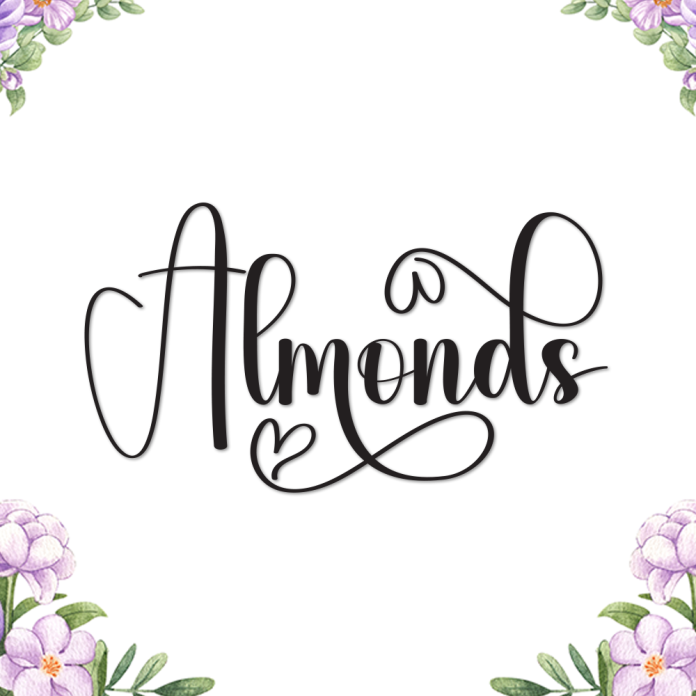
Almonds is a smooth and graceful handwritten font that captures the natural flow of real handwriting. Its elegant curves and gentle strokes make it perfect for designs that need a touch of personality and warmth.
This font is ideal for wedding invitations, personal branding, social media quotes, product packaging, and anything that calls for a handwritten charm.
Beautiful handwritten script style
Add a soft and heartfelt feel to your designs with the timeless elegance of Almonds.